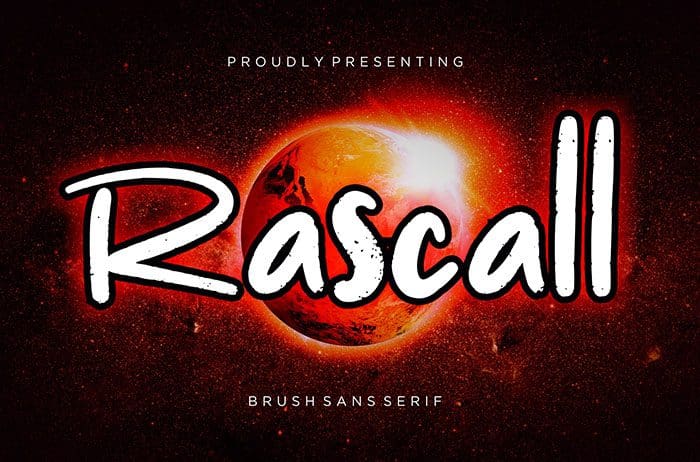
Rascall Sans Serif Font
Rascall is a Sans Serif Font with bold dan natural moves. Rascall is perfect for branding projects, social media posts, advertisements, labels, and more. Thanks to Creatype Studio for sharing this font! Take a look at this portfolio for more of his stunning fonts.